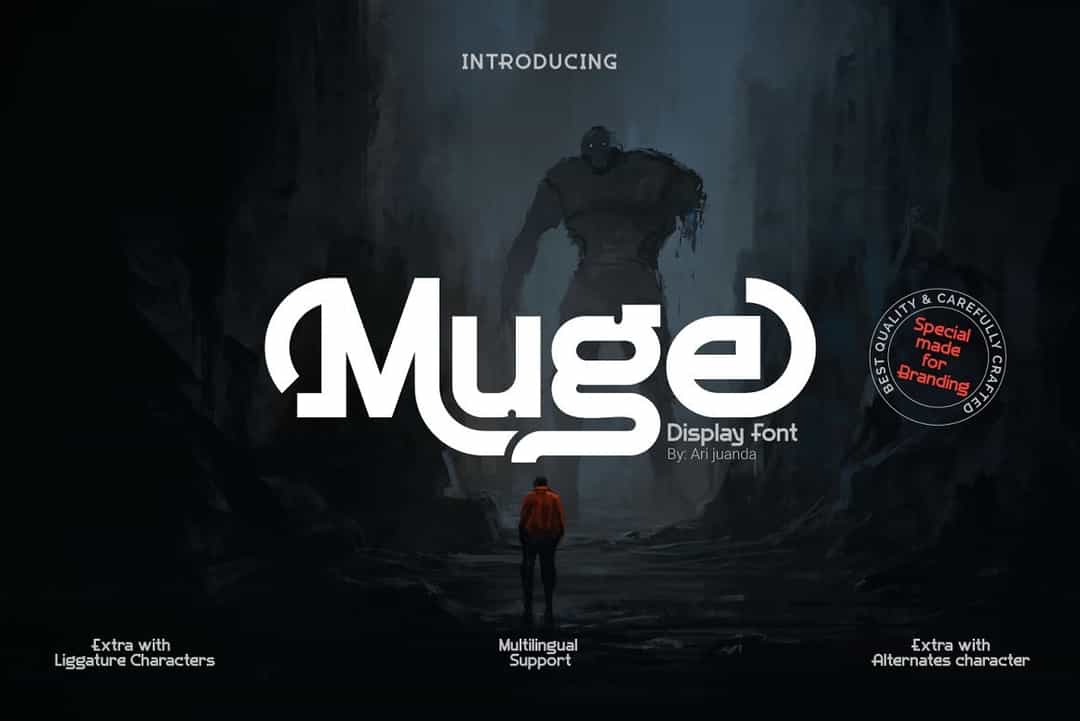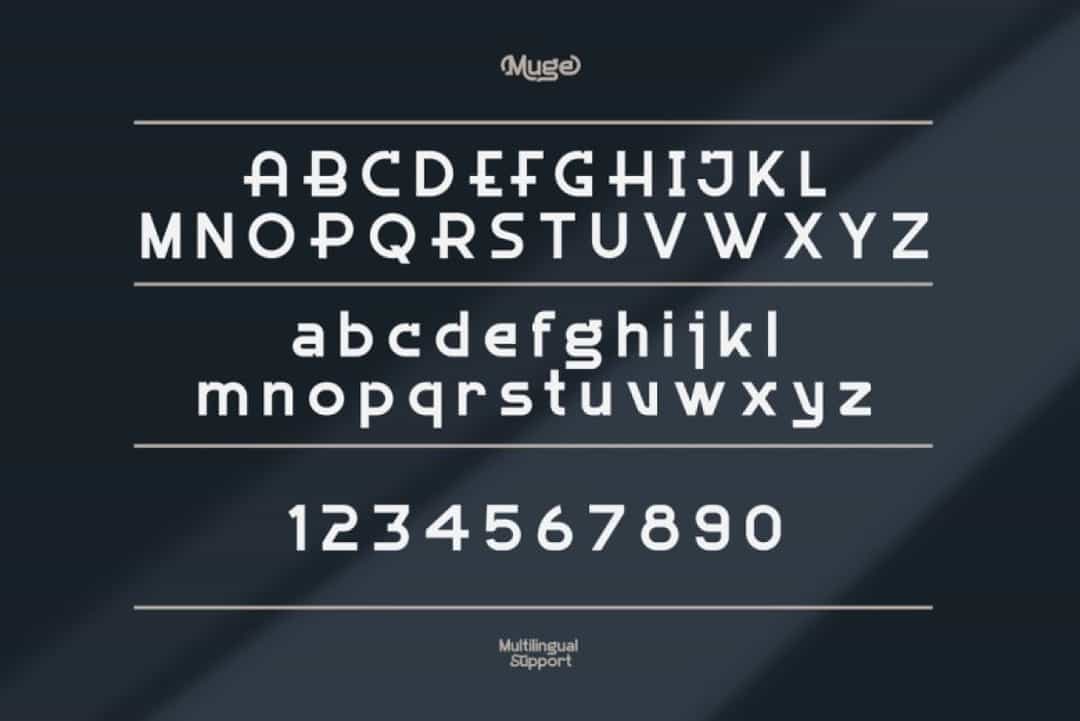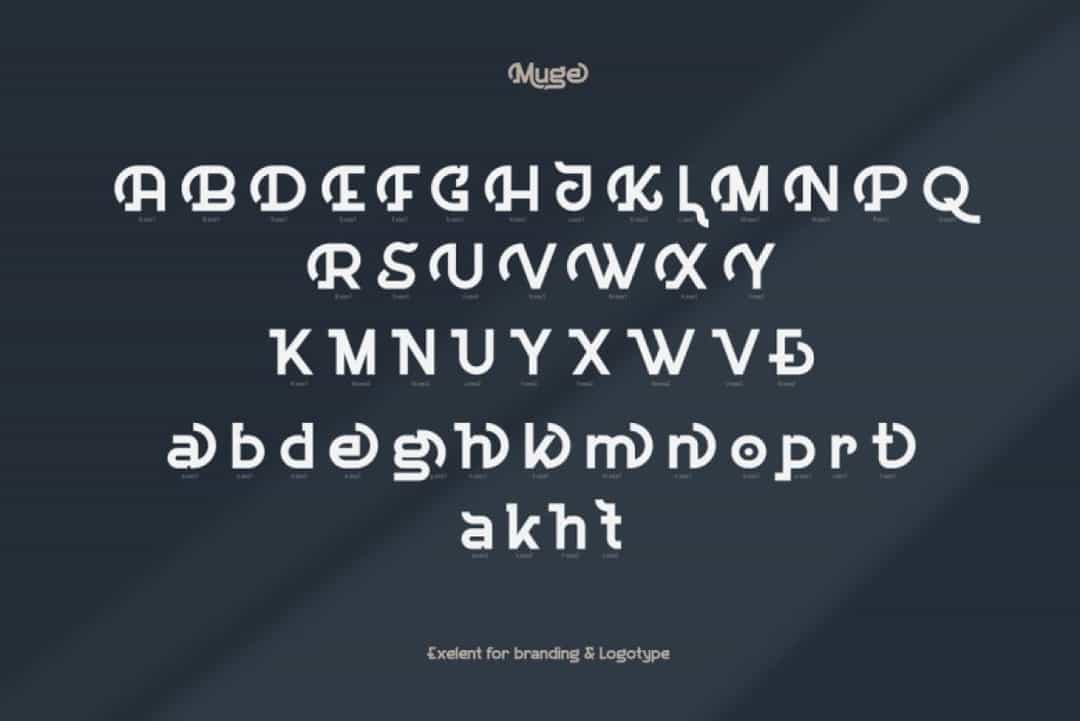
Discover Muge Font, part of the Sans Serif Display Logos collection—a versatile and unique font perfect for adding a personal touch to your projects. Download it for free and enjoy crafting designs with style, from invitations to social media posts. This font is available exclusively for personal use, giving you the freedom to create without limits. Unlock your creativity with Muge Font today!
Muge Display is ideal for branding and logotypes, featuring its contemporary stylish look and sophisticated ligatures and unlock styles to allow for versatile use in different ways. Plus, Muge supports multiple languages (Western Europe Latin)!